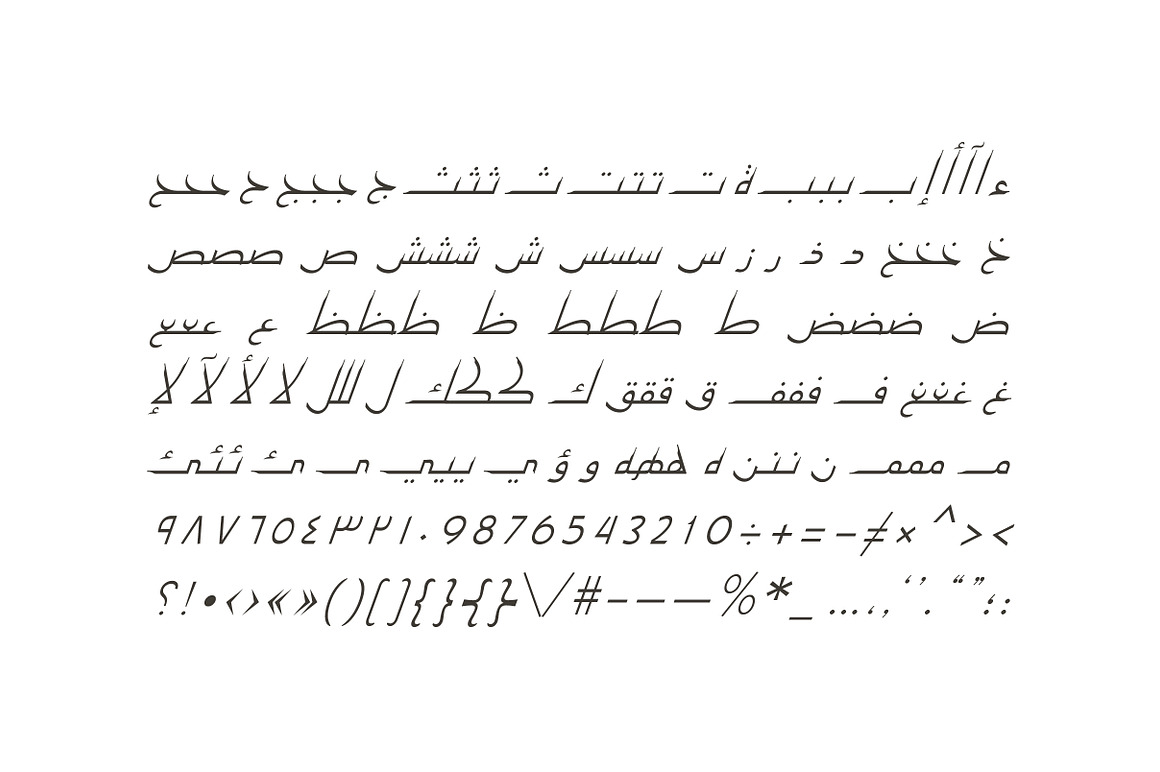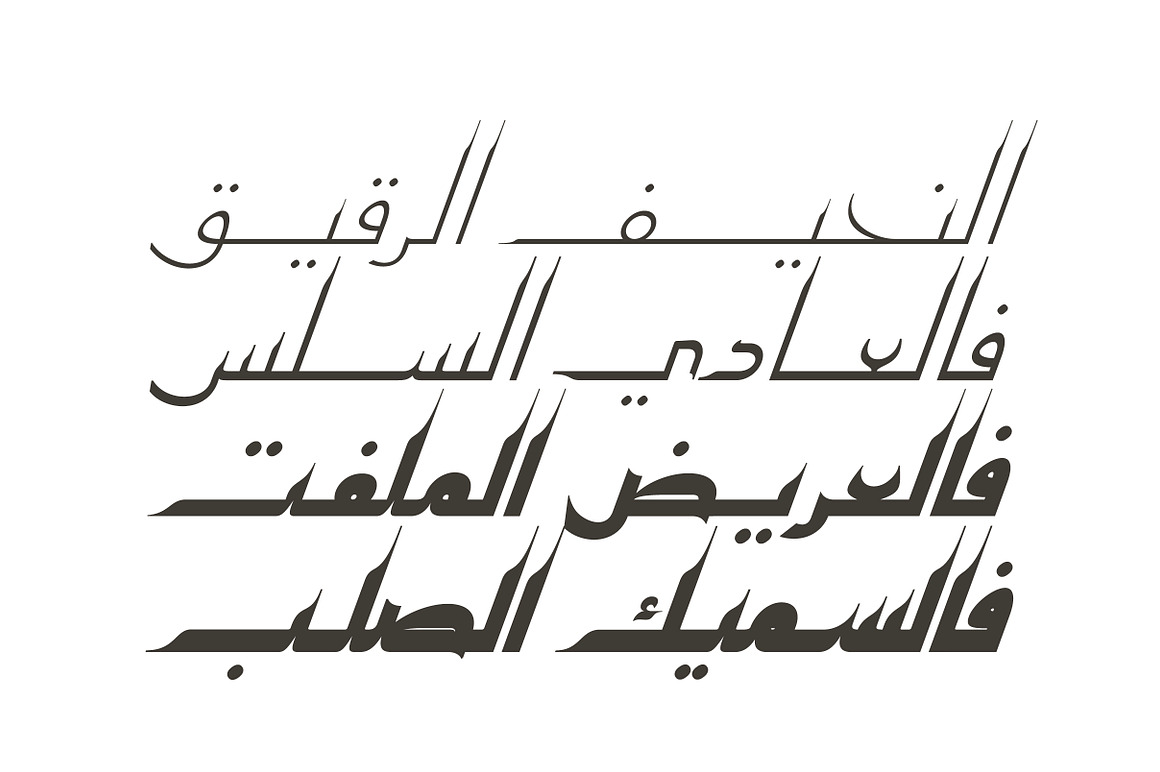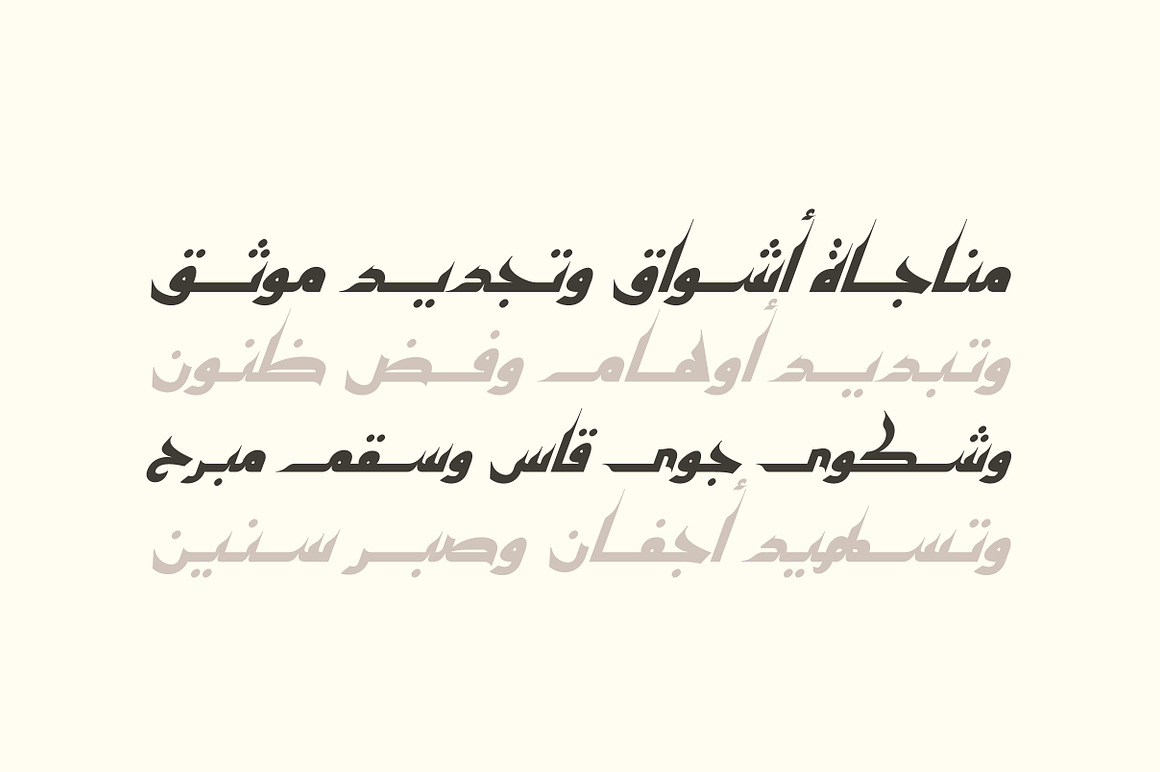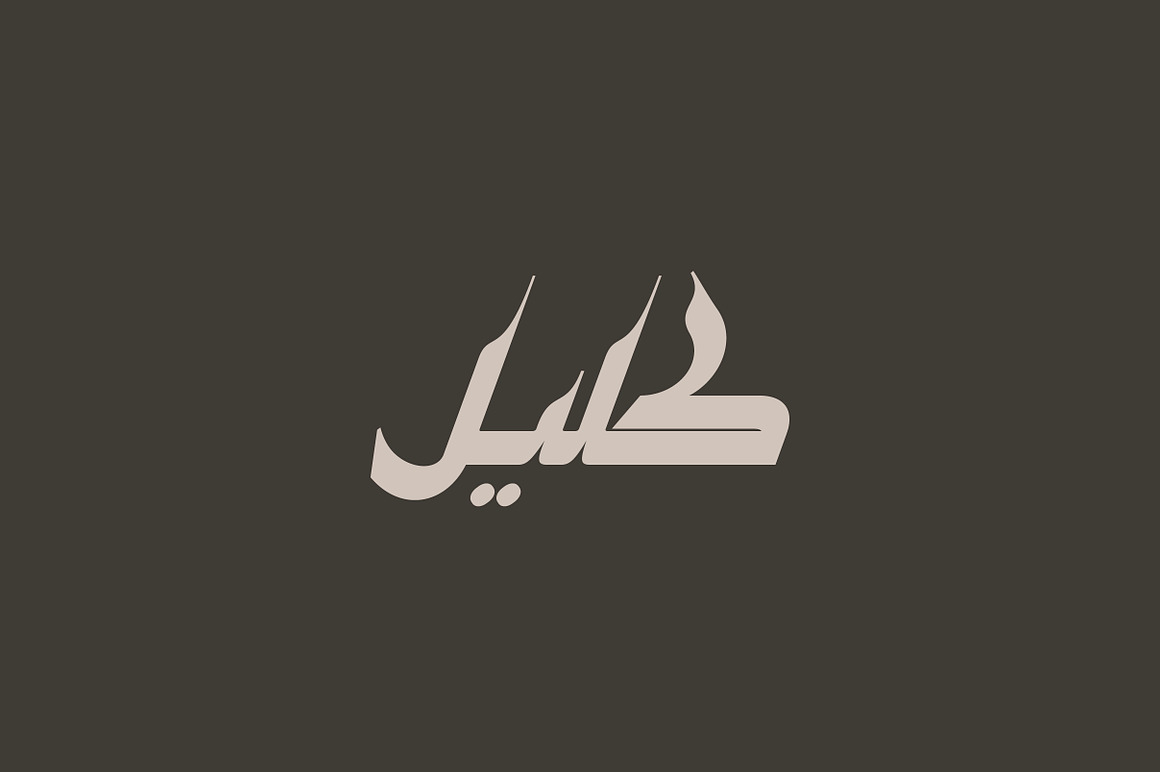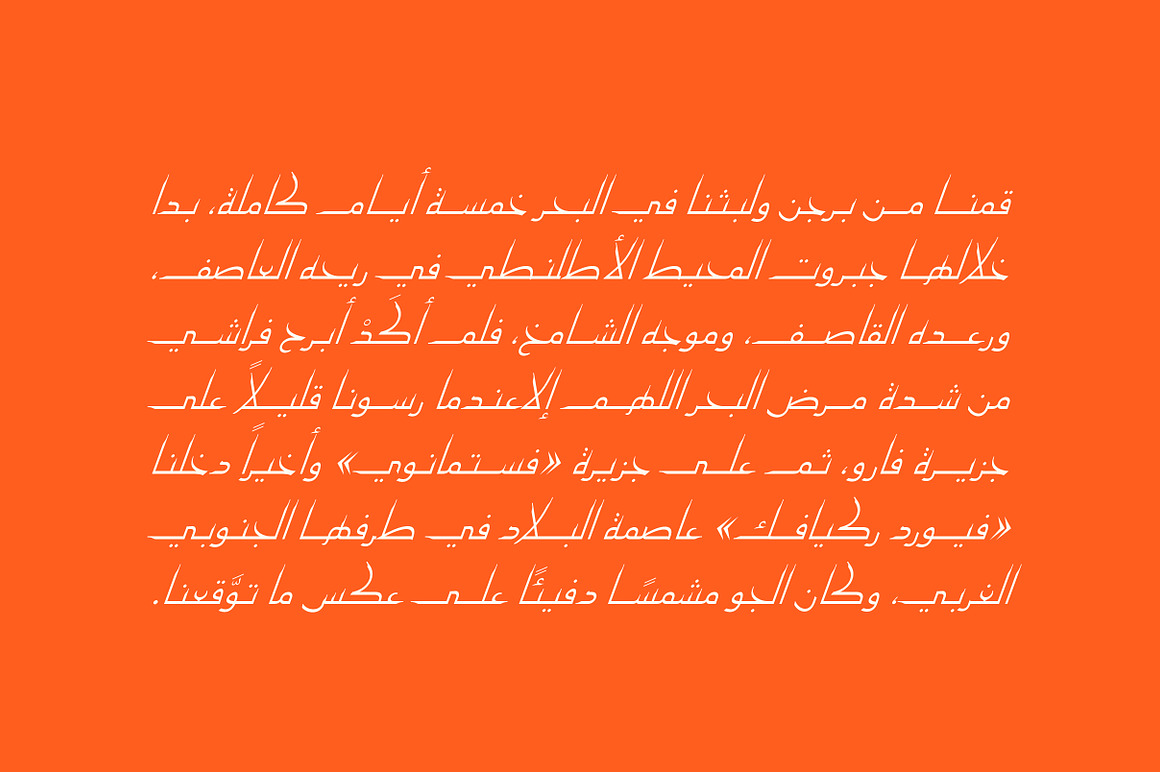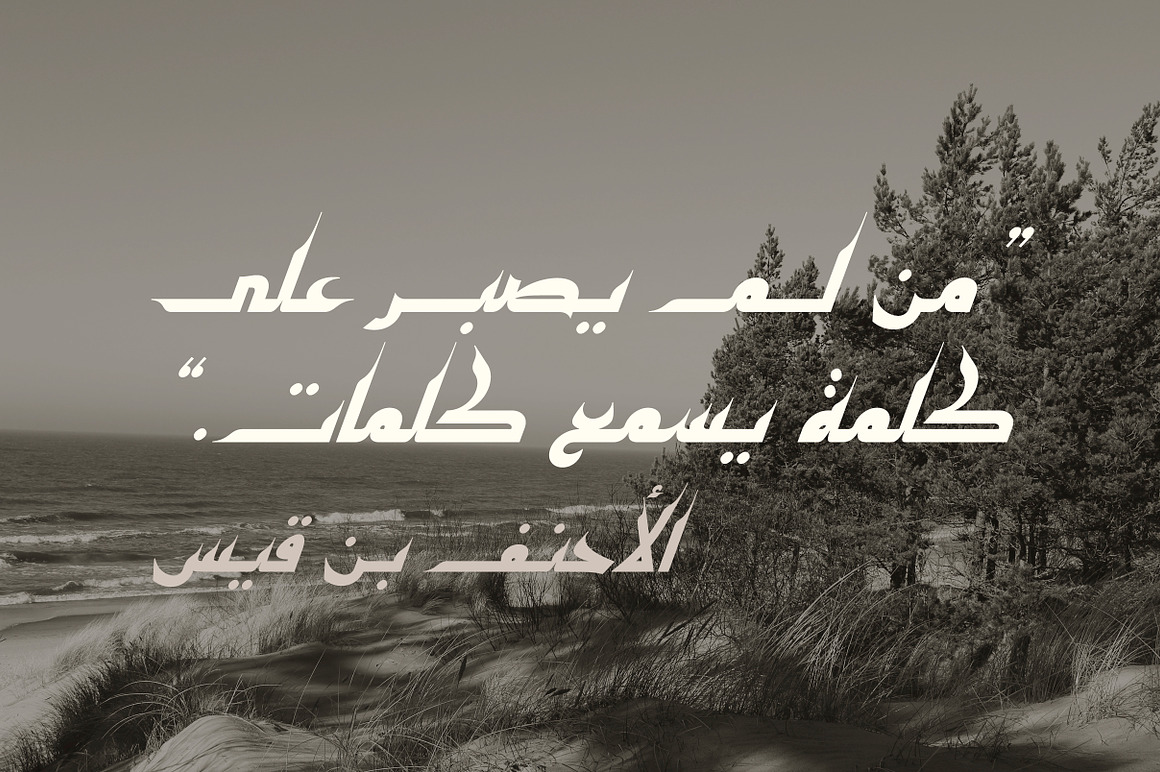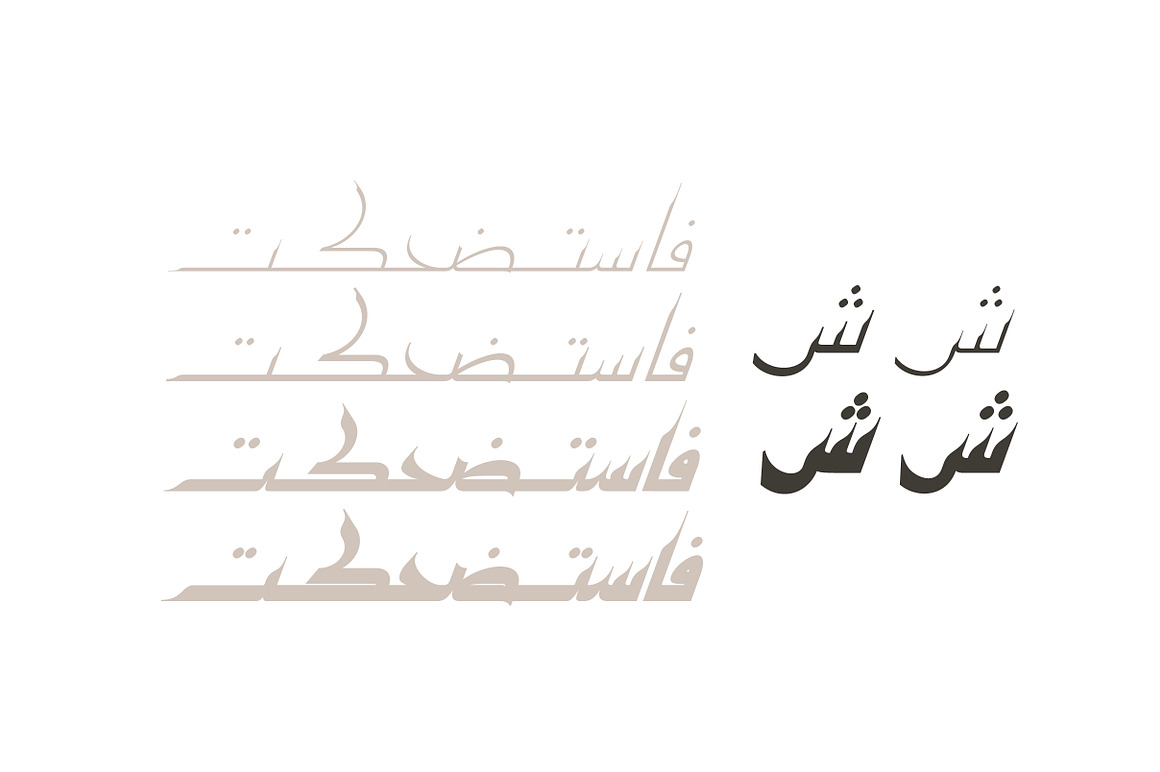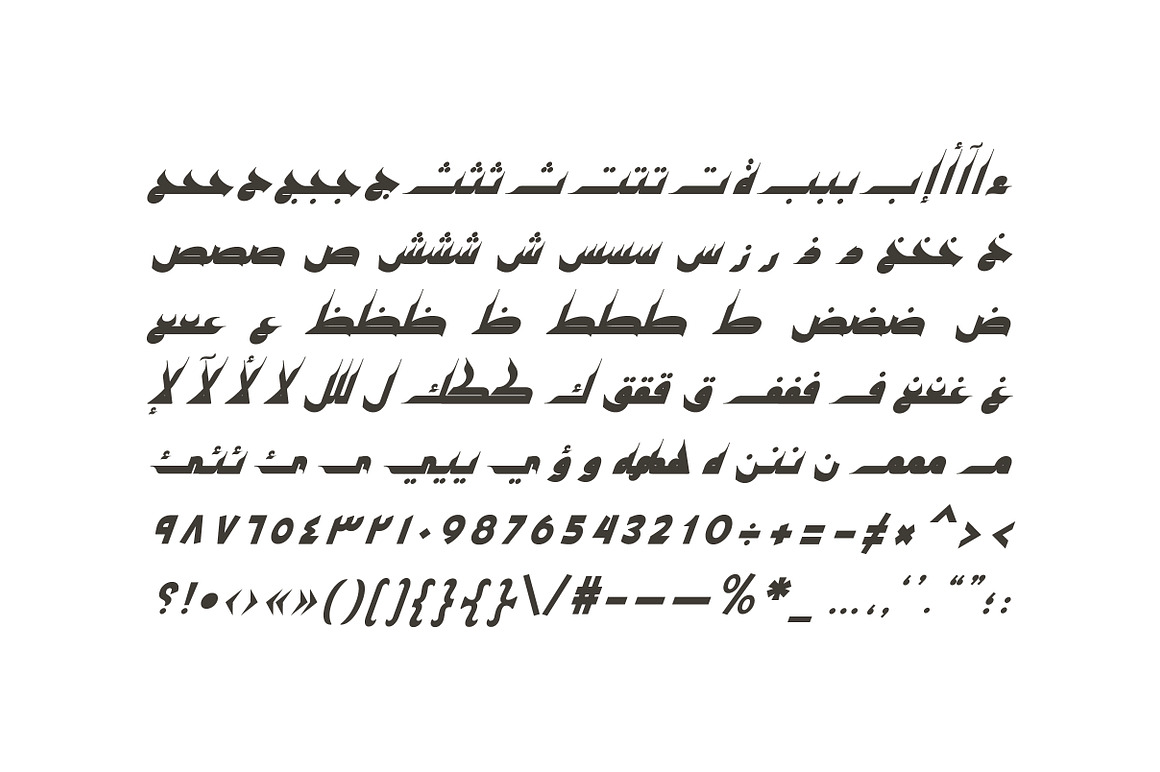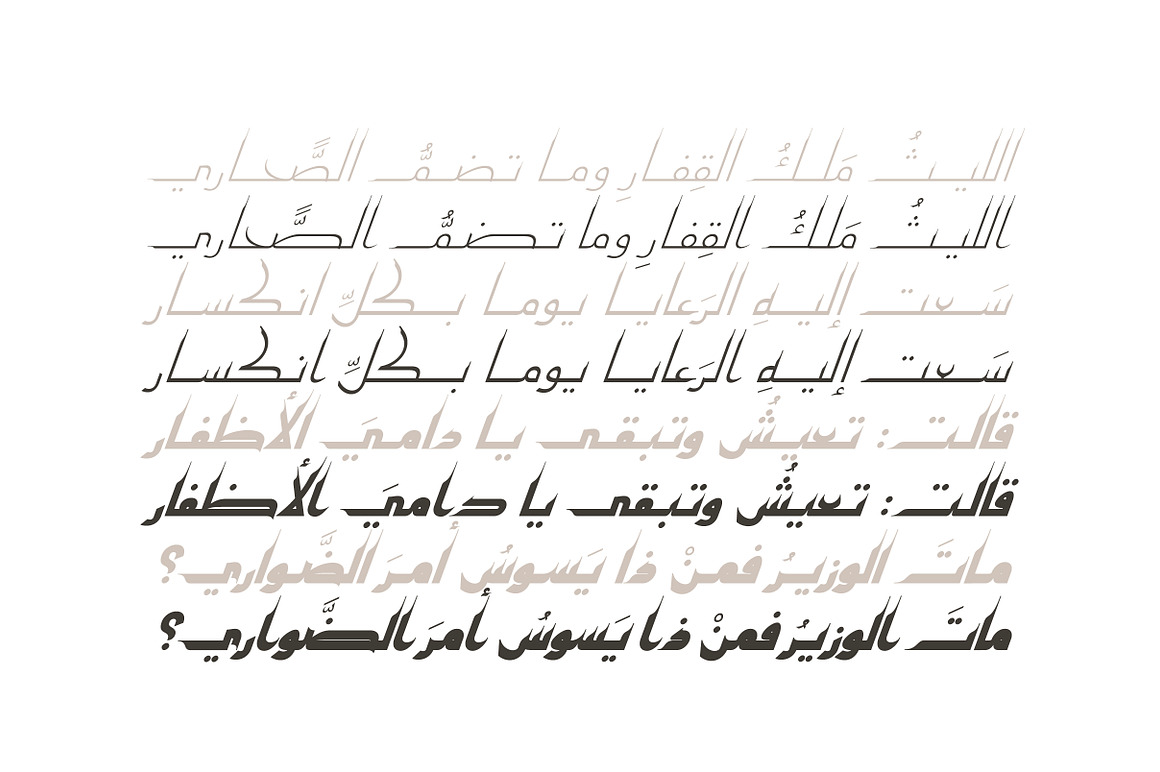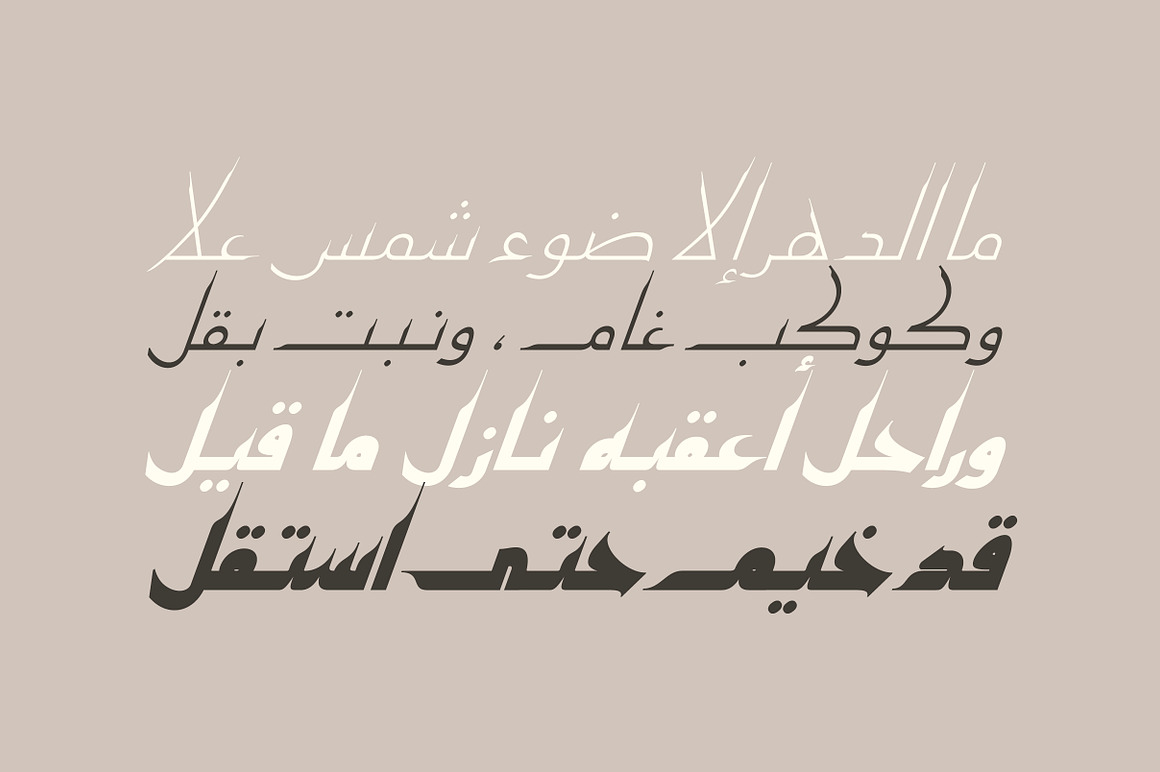
Kaleel Arabic Typeface
Kalil is a masterfully crafted typeface that draws inspiration from the rich artistic heritage of 10th-century Islamic pottery—where intricate calligraphy met vibrant ceramic art. This historical influence is beautifully translated into a contemporary font family that brings warmth, texture, and cultural depth to modern design projects.
Historical Inspiration:
• Inspired by colorful calligraphic pottery of the 10th century
• Captures the artistic spirit of Islamic ceramic traditions
• Historical authenticity with contemporary execution
• Warm, textured character reminiscent of handcrafted art
Complete Font Family – 4 Weights:
• Light: Delicate, elegant weight for refined applications
• Regular: Balanced, versatile weight for general use
• Bold: Strong presence for emphasis and headlines
• Black: Maximum impact for dramatic displays
• Plus a stylistic set for additional design flexibility
Language Support:
• Arabic: Complete Arabic character set across all weights
• Persian (Farsi): Full support for Persian-specific characters (گ، چ، پ، ژ)
• Urdu: Complete Urdu language support
• Comprehensive multilingual coverage in one family
• Historical Depth: Inspired by 10th-century pottery traditions
• Four Weights: Complete typographic flexibility
• Multilingual Support: Arabic, Persian, and Urdu in one family
• Unique Character: Warm, textured, and distinctive
Key Features of Kalil Font Family:
• 4 weights: Light, Regular, Bold, and Black
• Stylistic set included for design flexibility
• Supports Arabic, Persian, and Urdu
• Inspired by 10th-century calligraphic pottery
• Warm, textured, distinctive character
Kaleel is an Arabic display font that is inspired by the calligraphic slip-painted pottery form the 10th Century. The font family consists of 4 weights (Light, Regular, Bold and Black*) in addition to a stylistic set. Kaleel supports Arabic, Persian and Urdu and it suits a various range of creative applications for web and print.